Fonts evoke emotion. They set the tone for designs, influence the way we perceive words and can even tell a story without speaking. Among the myriad font styles, tattoo fonts have a unique charm—they exude personality, creativity and boldness. But choosing the right tattoo font isn’t always easy. Whether you’re working on a creative project, designing a logo or mapping out an actual tattoo, understanding how and when to use tattoo fonts can make all the difference.
This article will break down everything you need to know about tattoo fonts, showcase some key styles, explain their best applications and provide tips for using them effectively. By the end of this article, you’ll feel confident in selecting and applying tattoo fonts to elevate your design projects.
What are tattoo fonts?
Tattoo fonts capture the intricate, handwritten essence of traditional tattoo designs. They are inspired by the calligraphy and hand-drawn artistry found in tattoo culture. Their origins often lie in historical ink styles, from old-school sailor tattoos to modern, minimalist body art.
Unlike standard fonts, tattoo fonts often feature unique embellishments—flourishes, exaggerated strokes or irregular shapes—that give them a distinct visual flair. They're designed to evoke emotion, giving designs a sense of individuality and creativity.
Tattoo fonts are commonly used in graphic design, branding and creative projects. They’re perfect for achieving a bold, artistic statement—and while they’re named after tattoos, their applications go far beyond body art.
11 tattoo fonts and when to use them
01. Black Ops One
Black Ops One is a sleek, sans-serif typeface that exudes a bold and rugged character. Inspired by military stencil lettering, it features strong geometric shapes and a sturdy, assertive design that feels powerful and commanding. The heavy, squared-off strokes and sharp edges give it a distinctive, industrial appearance that instantly grabs attention. Despite its strong presence, Black Ops One maintains excellent legibility, making it suitable for various creative contexts. This typeface is perfect for projects that need to convey strength, action or grit, adding a dynamic edge to titles or branding.
Best for: Action-packed posters, edgy sports branding, video game titles, bold event flyers and military-inspired designs.
02. Cinzel
Cinzel is a timeless serif typeface that draws inspiration from classical Roman inscriptions. With its elegant and refined letterforms, it exudes a sense of sophistication and tradition while maintaining a modern edge. The sharp serifs and balanced proportions give it a regal and authoritative appearance, making it ideal for designs that aim to feel luxurious or historic. Cinzel’s versatility allows it to shine in both display and text settings, adding a touch of grandeur and artistry to any project.
Best for: Luxury branding, wedding invitations, historical designs, book covers and elegant logos.
03. Frijole
Frijole is a playful and eccentric display typeface that radiates energy and charm. Its exaggerated, almost cartoon-like letterforms are bold and slightly wavy, offering a whimsical, hand-drawn feel that adds personality to any digital design. Each letter appears brimming with movement and fun, making Frijole an excellent choice for projects that need to draw attention in a lighthearted, creative way. Its bold strokes and distinctive style make it a standout option for titles or branding that aim to engage with a fun-loving audience.
Best for: Quirky event posters, playful branding, children’s book titles, whimsical packaging designs and cheerful digital marketing strategy campaigns.
04. Germania One
Germania One is a striking typeface reminiscent of traditional Gothic blackletter styles, reimagined with modern elegance. Its bold, angular forms echo centuries-old craftsmanship, while its clean, streamlined details bring contemporary versatility. The sharp serifs and intricate strokes create a sense of drama and sophistication that feels both historic and daring. Despite its historic roots, Germania One maintains impressive readability, making it a unique choice for diverse design projects. This font adds an air of tradition and power to any composition, blending medieval influence with modern design sensibilities.
Best for: Vintage posters, brewery logos, wedding invitations with a historical theme and edgy apparel branding.
Explore our invitation templates and use our invitation maker to create memorable and impactful events.
05. Grenze Gotisch
Grenze Gotisch is a captivating font that merges the intricate nature of traditional Gothic script with the flair of contemporary aesthetics. Its sweeping curves, paired with sharp, dramatic edges, convey a sense of grandeur and mystery. The font’s ornate details and balanced structure evoke the artistry of ancient manuscripts, while remaining accessible for modern designs. Grenze Gotisch’s ability to seamlessly mix elegance with boldness makes it a standout choice for artistic expression. It adds depth and personality to projects, offering a touch of medieval elegance combined with updated sophistication.
Best for: Fantasy-themed book covers, ornate product packaging, theatrical posters and elaborate logo designs.
06. Miltonian
Miltonian is a whimsical typeface that blends playful charm with vintage allure. Its quirky, looping strokes and exaggerated curves evoke a sense of lively movement, giving it an almost hand-drawn quality. The font’s personality shines through with its ornate, swirly details that suggest nostalgia and creativity. Miltonian strikes a balance between eccentricity and readability, making it a delightful addition to designs that need an imaginative touch. It’s ideal for projects that seek to capture a sense of fun while maintaining a stylish, retro vibe.
Best for: Artisanal product labels, creative event posters, whimsical stationery and quirky brand identities.
Create lasting impressions with our high-quality greeting card templates designed for every occasion.
07. New Rocker
New Rocker is a bold typeface that channels the rebellious spirit of classic rock-and-roll culture. With its sharp angles, dynamic strokes and slightly distressed details, it captures a gritty, energetic vibe that feels both vintage and untamed. Its edgy design is inspired by heavy metal album covers and punk aesthetics, but it offers a polished finish that suits modern design needs. New Rocker brings attitude and intensity to any project, making it perfect for those who want to break free from convention and make a striking visual statement.
Best for: Music festival posters, band logos, rebellious fashion branding and bold, energetic advertising.
08. Pirata One
Pirata One is a striking blackletter typeface that embodies a sense of heritage and adventure. With its ornate, gothic-inspired letterforms, it exudes a dramatic and storytelling quality that feels like a bridge to the past. Its intricate details and sharp edges command attention, while maintaining a sense of elegance and mystery. Pirata One’s distinct style offers a bold impact, making it perfect for designs that seek to evoke a historical, vintage or adventurous atmosphere. This typeface adds depth and intrigue that enriches any creative project.
Best for: Historical-themed posters, pirate-themed branding, vintage book covers, fantasy game titles and gothic-inspired invitations.
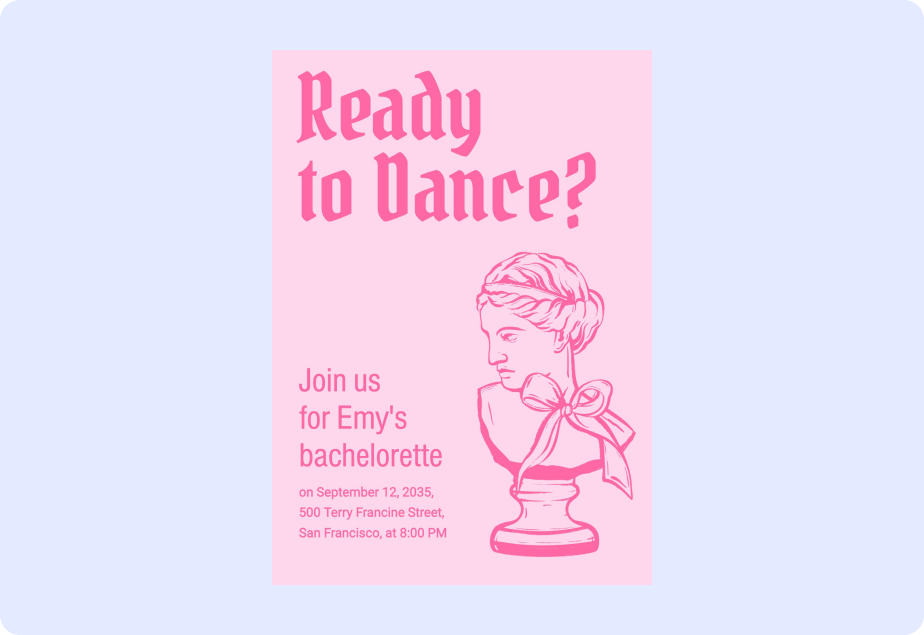
09. Ribeye
Ribeye is a playful and robust typeface that bursts with personality and charm. Its bouncy, irregular letterforms and subtly textured edges give it a handcrafted, almost cartoonish appeal. The font exudes a sense of fun and creativity, with its oversized curves and whimsical shapes lending a lighthearted vibe to any design. Perfectly balanced between quirky and approachable, Ribeye brings energy and warmth to projects, making it well-suited for designs that aim to be both unique and inviting.
Best for: Retro diner signage, playful product packaging, children’s book titles and vibrant event flyers.
10. Rye
Rye is a vintage-inspired slab serif font that exudes warmth and nostalgia. Its bold, chunky letterforms are paired with subtle curves and slight distressing, giving it a weathered charm that feels both sturdy and inviting. The uneven texture and classic design nod to old-time signage and traditional printmaking, making Rye an excellent choice for projects that aim to evoke a sense of familiarity and authenticity. Its striking presence and uniquely rustic appeal make it a versatile typeface for designs needing a touch of heritage and character.
Best for: Retro branding, rustic café menus, vintage-inspired posters, handmade product packaging and nostalgic web designs.
11. UnifrakturMaguntia
UnifrakturMaguntia is a dramatic blackletter typeface that offers an authentic blend of medieval charm and modern adaptability. With its sharp, angular strokes and intricate detailing, this font carries a historic gravitas reminiscent of ancient manuscripts and traditional print techniques. Its bold and heavily stylized letterforms create a commanding visual presence, making it perfect for projects that seek to captivate with a touch of old-world mystique. Despite its classic roots, UnifrakturMaguntia retains versatility, which allows it to seamlessly integrate into contemporary designs that demand a statement-making aesthetic.
Best for: Historical book covers, fantasy movie titles, medieval-themed event branding, gothic wedding invitations and ornate logo designs.
Pro Tip: Most of these fonts are available for free on Google Fonts, so you can explore and experiment without cost.
Tips for using tattoo fonts effectively
Tattoo fonts are versatile, but using them effectively requires a thoughtful approach. Here are key tips to ensure your designs remain polished and professional.
Choose fonts that match your theme
When considering a tattoo font, always ask yourself if it aligns with the tone of your project. For example, script fonts work beautifully for elegant wedding themes, while blackletter fonts are better suited for edgier designs. A mismatch between your font and theme may dilute the message you want to convey.
Avoid overcomplicating the design
While tattoo fonts are often intricate, too much complexity can harm your design. Balance is critical. If your text is detailed, balance it with clean visuals or ample whitespace. Conversely, if your visuals are intricate, opt for a simpler tattoo font to avoid overwhelming the audience.
Pay attention to readability
Some tattoo fonts—particularly decorative or script styles—can be more challenging to read at smaller sizes. Always test your chosen font in different sizes, and make adjustments to maintain readability. Remember, beautiful typography won't matter if your audience can't understand the message.
Use contrasting fonts for hierarchy
Pair your tattoo font with contrasting fonts to establish a clear hierarchy. For example, use a script tattoo font for a headline and a sans-serif font for the body text. This approach ensures the design feels cohesive while maintaining clarity.
Experiment with color and texture
Tattoo fonts work wonderfully with layered designs. Try pairing them with textures, such as distressed paper or metallic finishes, for unique results. But remember that simplicity is often the key to sophistication—use textures as accents, not distractions.
Stay updated on typography trends
Stay updated on typography trends to keep your designs fresh and contemporary. Exploring these trends will help you better connect with audiences and create standout visuals.
Explore these fonts for more design inspiration:
Calligraphy fonts for elegant and artistic designs
Cool fonts to add personality to your creations
Cursive fonts for timeless designs
Cute fonts to bring charm to your designs
Free fonts: a curated selection
Fun fonts for playful and lively projects
Futuristic fonts for cutting-edge and modern designs
Graffiti fonts to infuse urban energy into your designs
Handwriting fonts to add a personal, authentic touch
Number fonts for creative numerical typography
Poster fonts to make your designs bold and eye-catching
Pretty fonts to enhance delicate designs
Professional fonts for polished and formal designs
Psychedelic fonts to inspire striking and retro visuals
Resume fonts to help your skills stand out with style
Retro fonts for a nostalgic twist in your visuals
Scary fonts to give your designs a chilling edge
Script fonts for a touch of sophistication
Tattoo fonts FAQ
What program is best for using tattoo fonts?
Graphic design tools like Wixel offer robust features for incorporating tattoo fonts into your projects. It allows you to experiment with font sizes, pairings and effects while ensuring professional output.
Can tattoo fonts work in professional settings?
Absolutely. Minimalistic and script tattoo fonts, in particular, can work well in corporate or personal branding. Just ensure that the font aligns with your brand’s identity and communicates professionalism.
How do I pair tattoo fonts with other typefaces?
When making font pairings with tattoo fonts, aim for contrast. Pair bold tattoo fonts with lighter, cleaner typefaces to create distinction. For example, combine a heavy blackletter tattoo font with a simple sans-serif for balance.